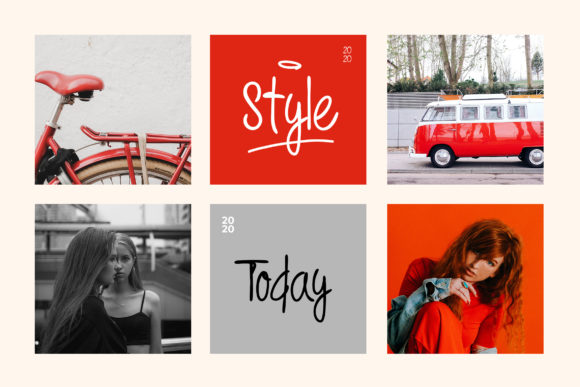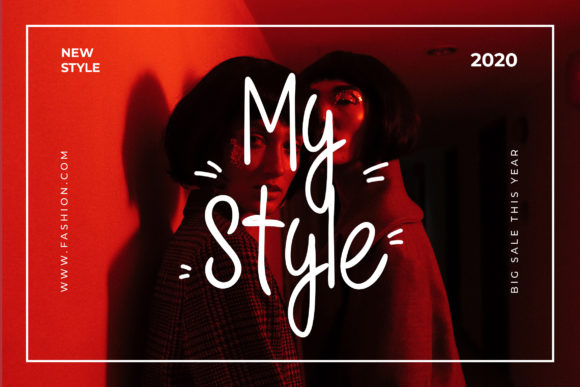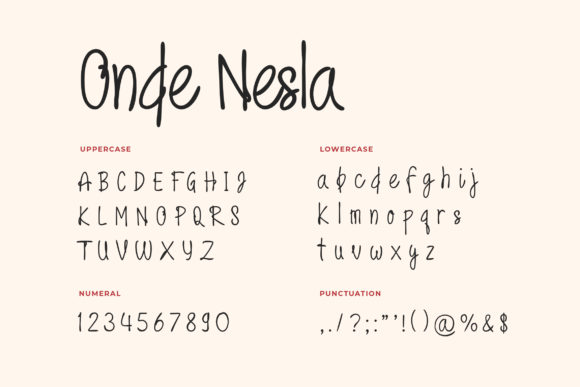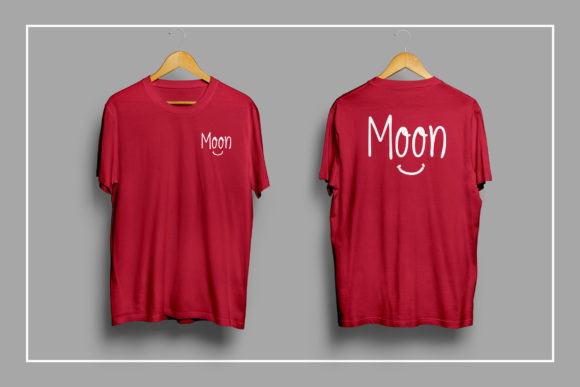
Introduction to Onde Nesla Font
Onde Nesla is a thin, relaxed and casual script font.
No matter the topic, this font will be an incredibly asset to your fontsโ library, as it has the potential to elevate any creation .
Key Features of Onde Nesla Font
Why Choose Onde Nesla Font?
Onde Nesla Font offers exceptional quality and versatility, making it a valuable addition to your design toolkit. Whether you’re creating for personal projects or commercial use, Onde Nesla Font delivers professional results.